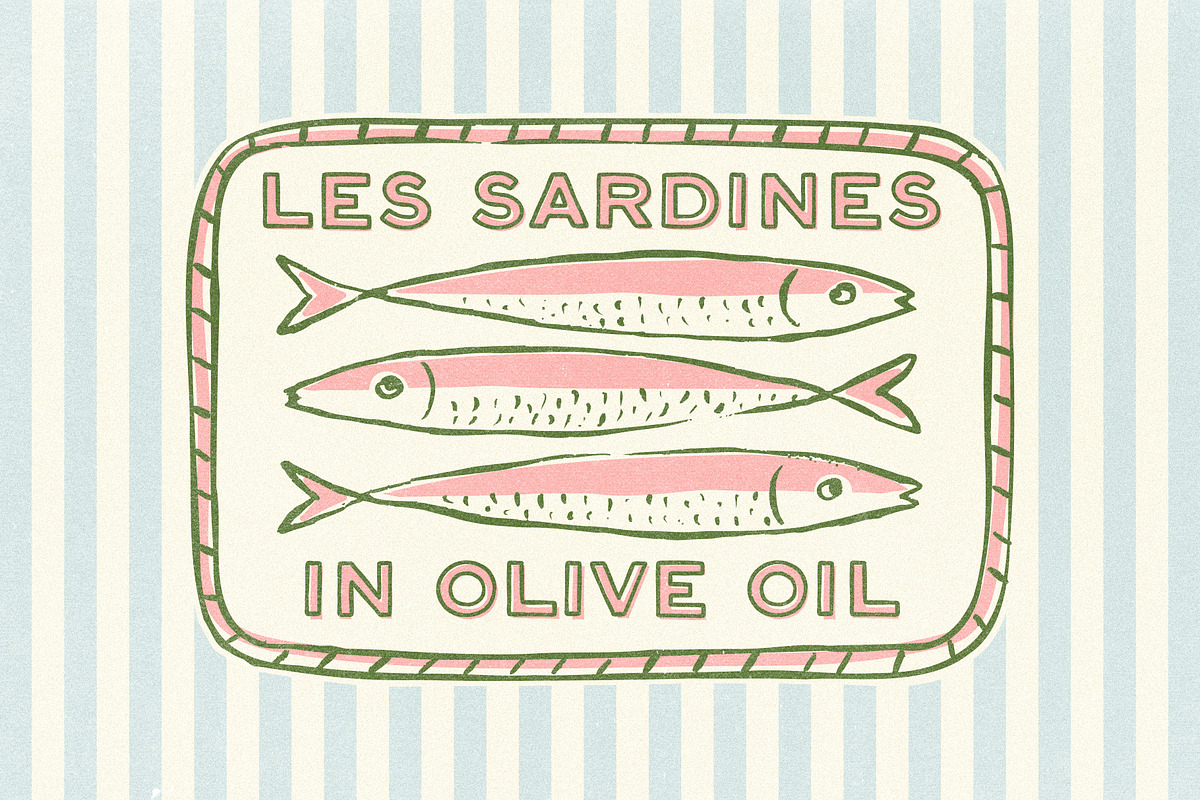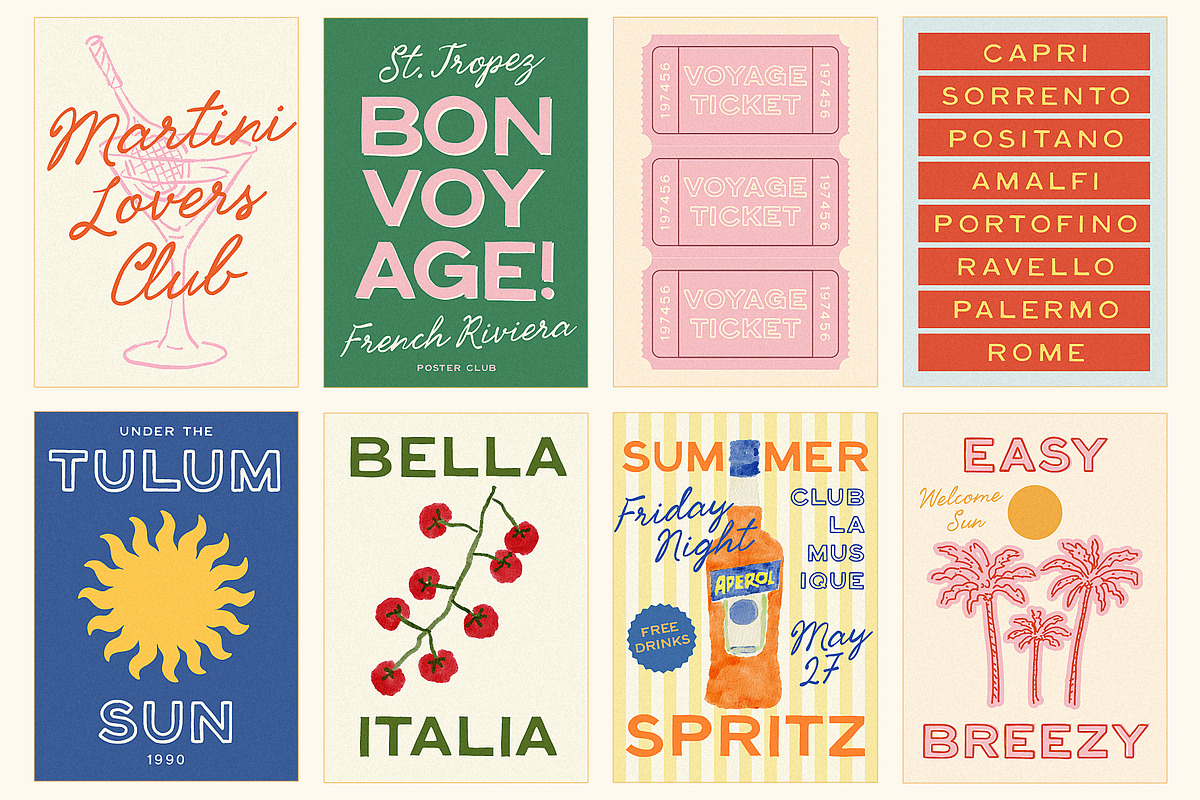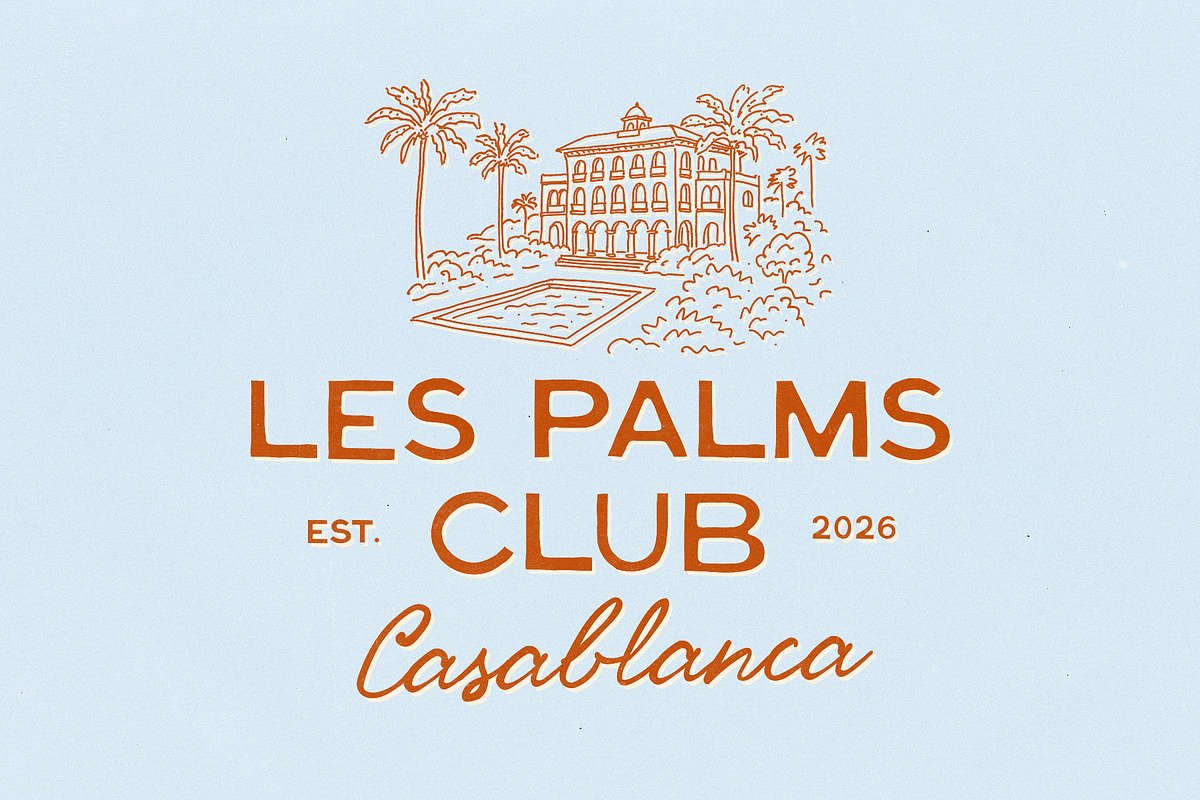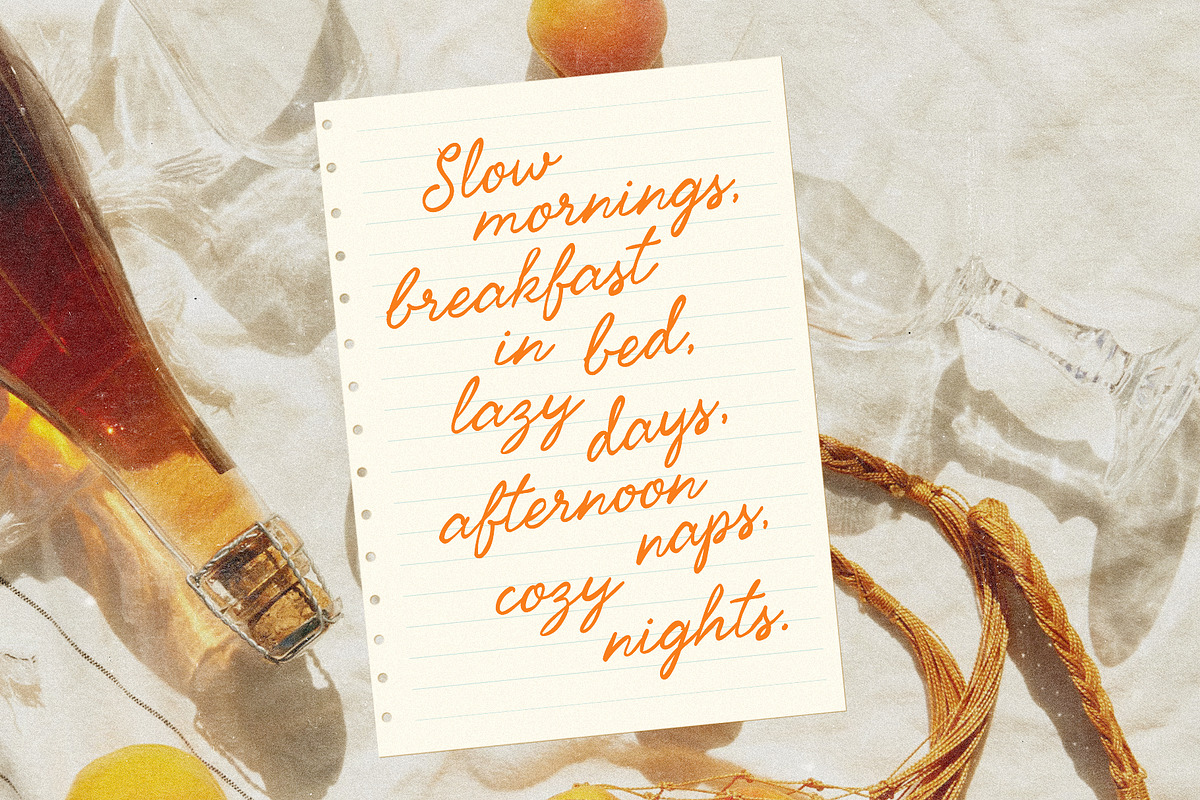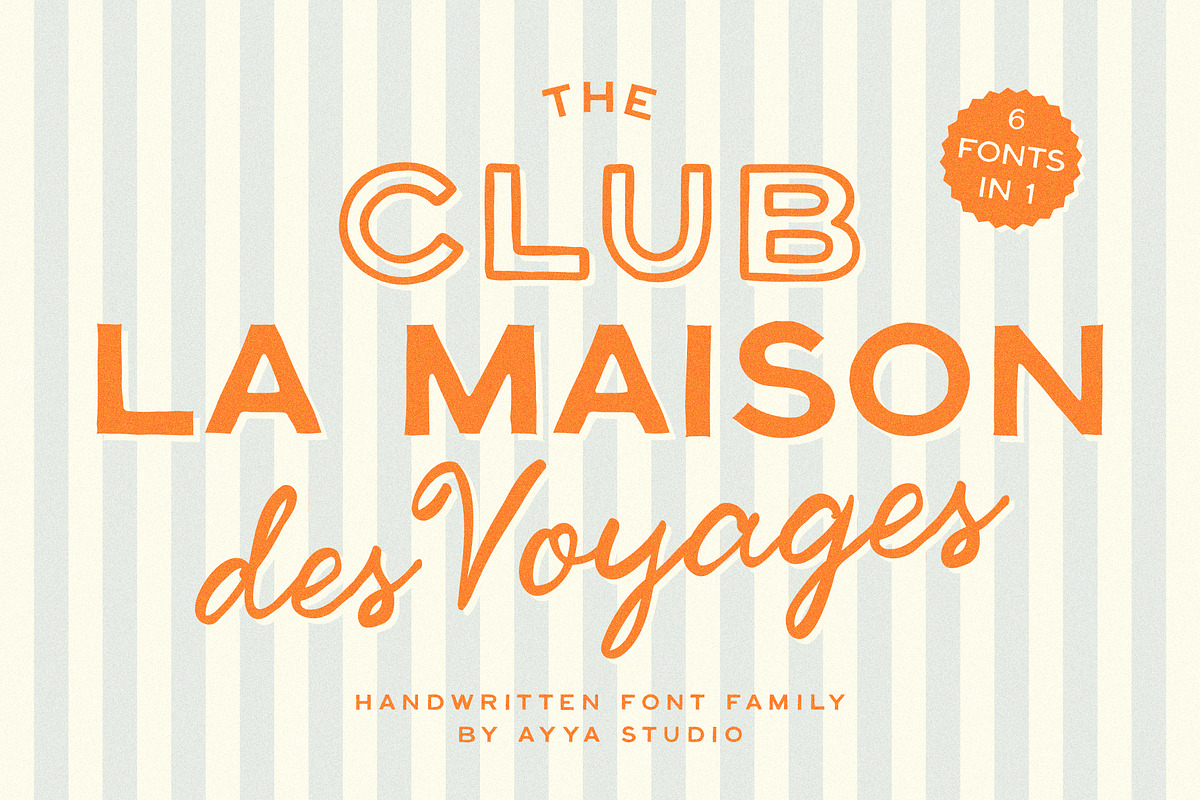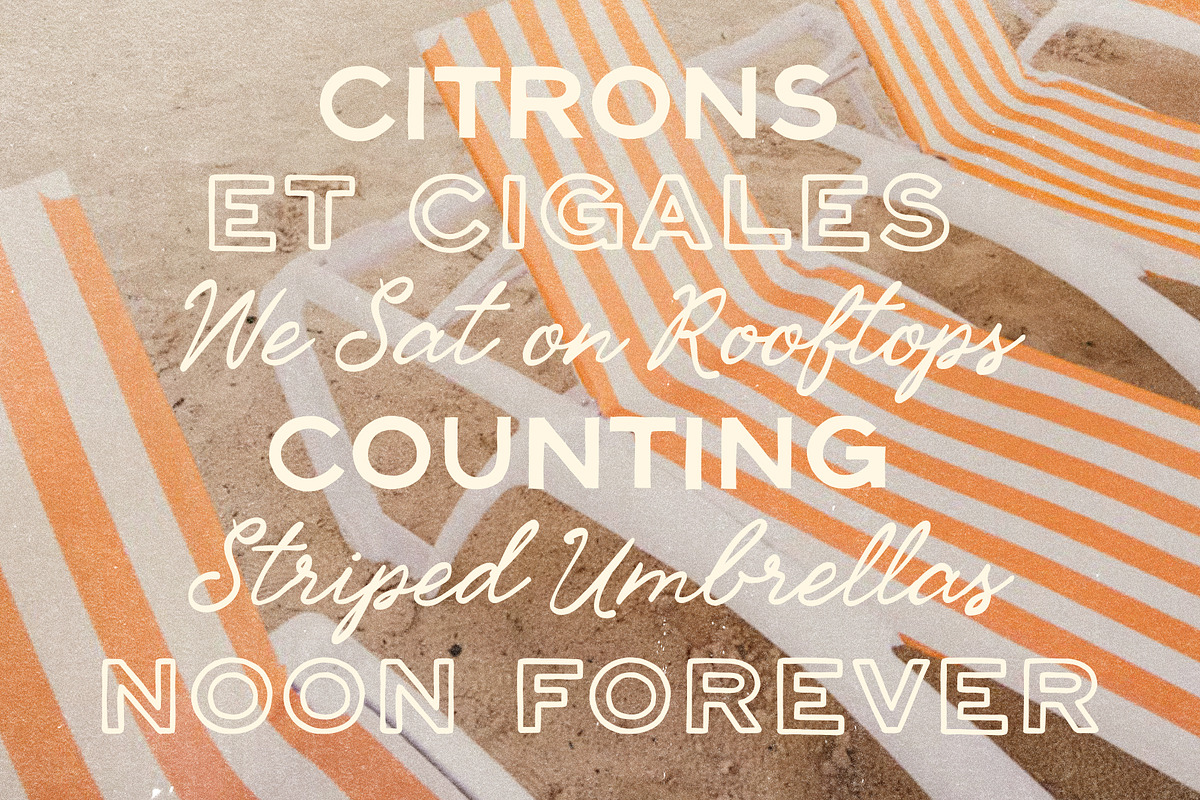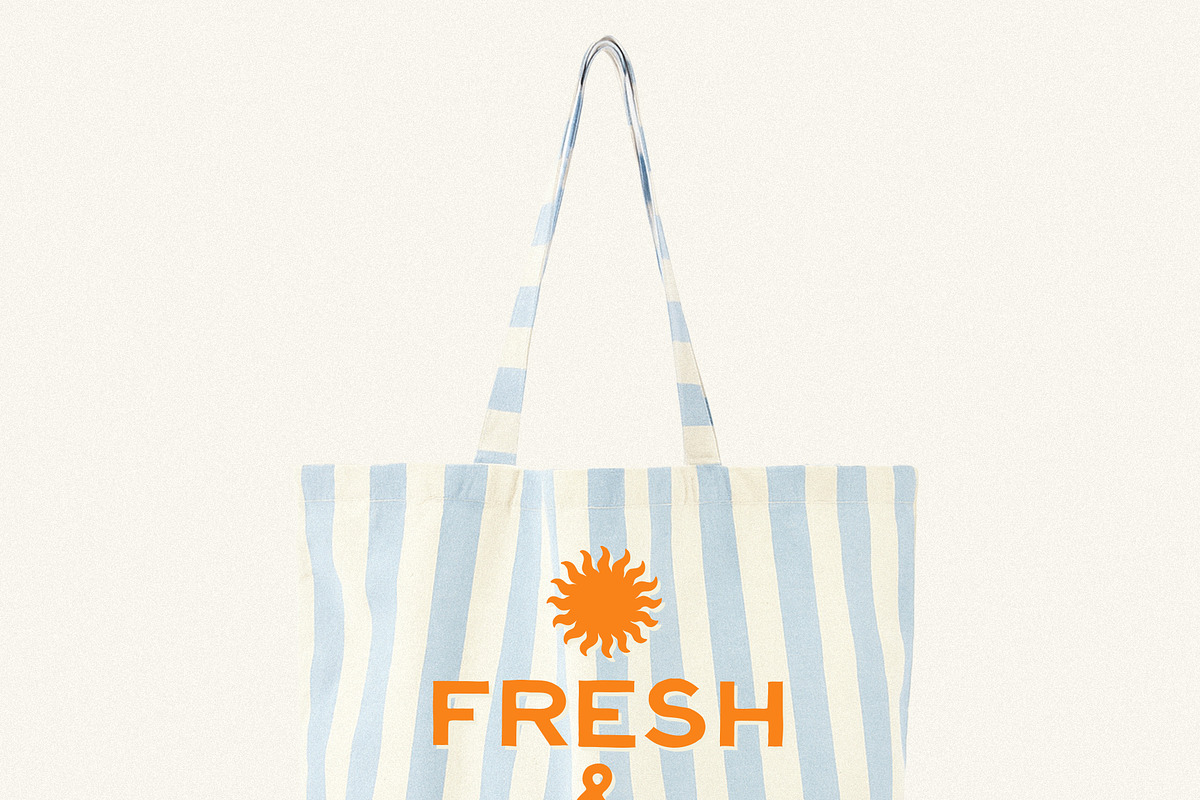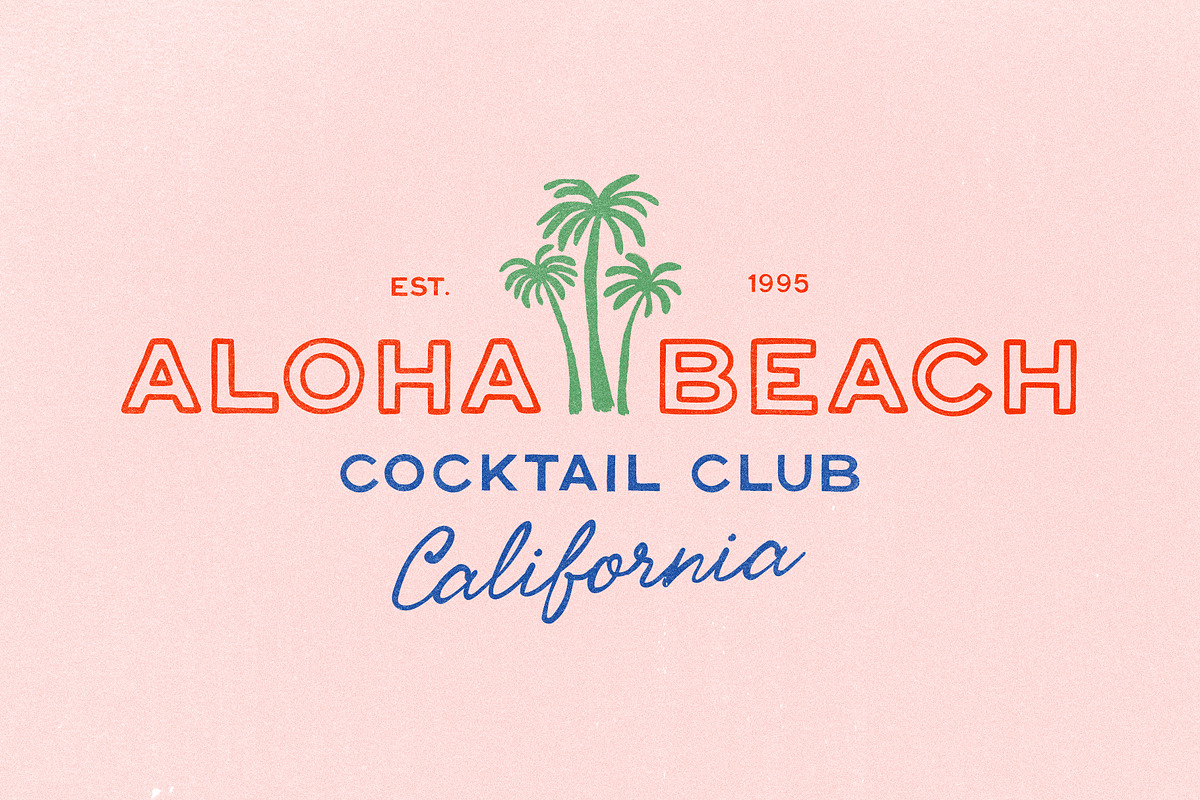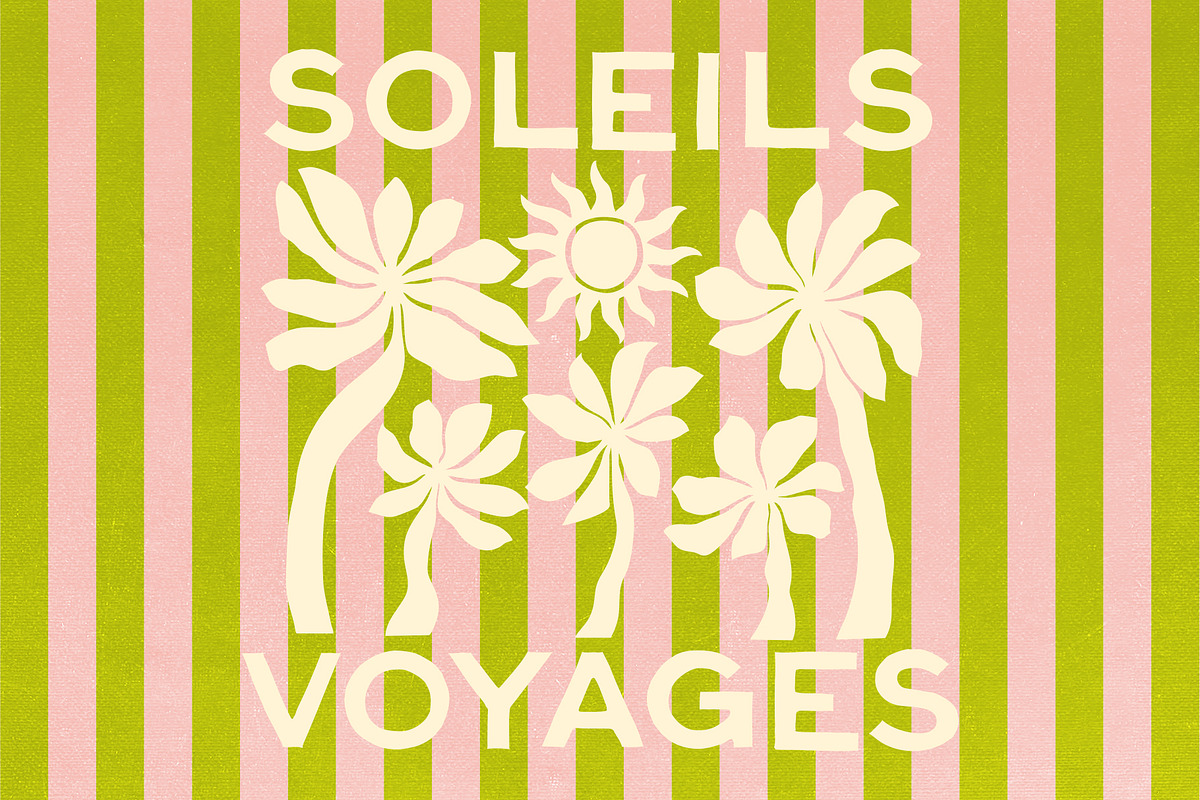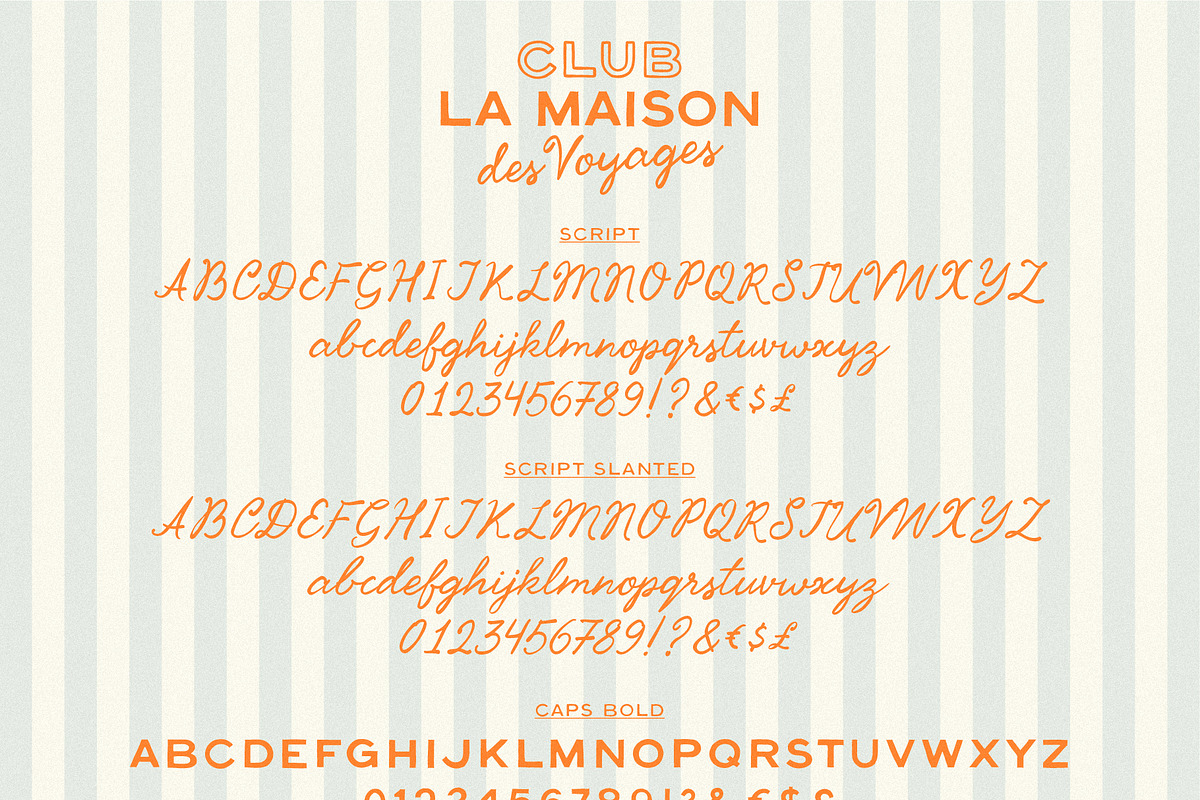
Handwritten Coastal Vintage Font
Welcome to Club La Maison Des Voyages – a font collection with the spirit of vintage travel and summer escape. 🌴 🧳 ☀️
This set was born from the love for old travel magazines, beach club branding, and the dreamy charm of Mediterranean holidays. Imagine sun-bleached postcards, hand-painted signage, striped loungers, and warm wind from the coast – that’s the mood behind this font family.
Inside: 6 fonts in one pack, all hand-drawn with slightly imperfect lines and a playful character. They’re made to mix – from bold sans serifs to a soft script that adds just the right emphasis. The script pairs beautifully with any of the sans styles and brings rhythm to your layouts.
It’s a relaxed, flexible font family for designers and font lovers who want to add warmth and personality to their work, ideal for posters, quotes, logos, summer branding, packaging, and content that needs a breezy vibe. 🌊